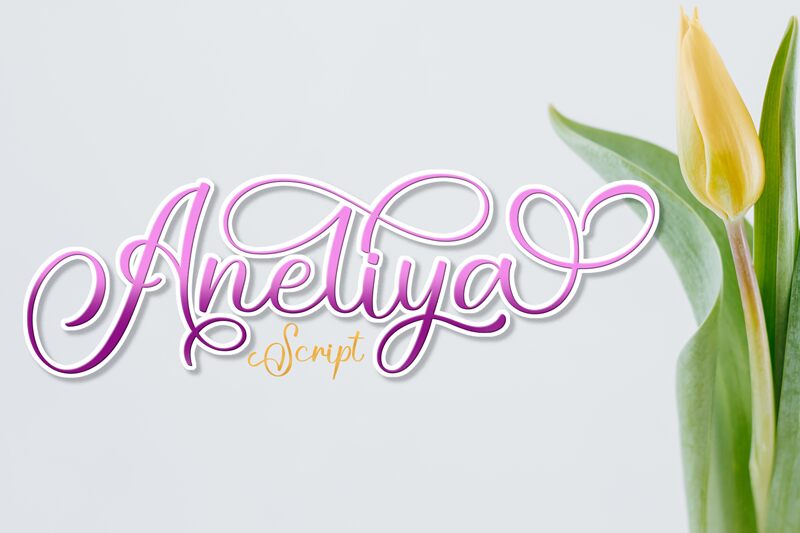
Aneliya
Aneliya is a light calligraphy script font designed by Niyos. This elegant and graceful font is perfect for wedding invitations, social media posts, logos, and any other creative projects.